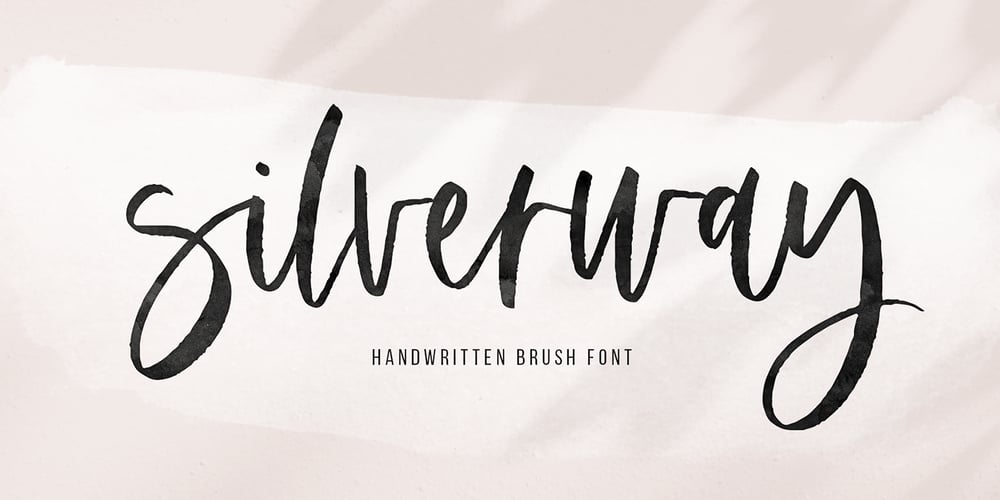
Silverway Font Family was designed by Kaitlynn Albani and published by KA Designs. Silverway contains 1 styles and family package options. Silverway is a mix of fun and elegance – with a unique take on modern calligraphy. This font has a strong brush texture, making all of your projects looking handwritten! Silverway is perfect for all modern projects, headings, branding, logos, advertisements, bloggers, business cards, social media and more!